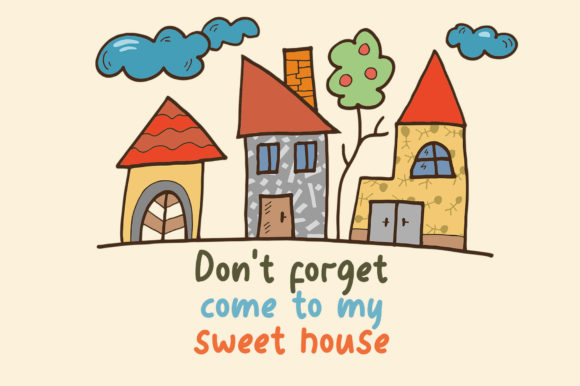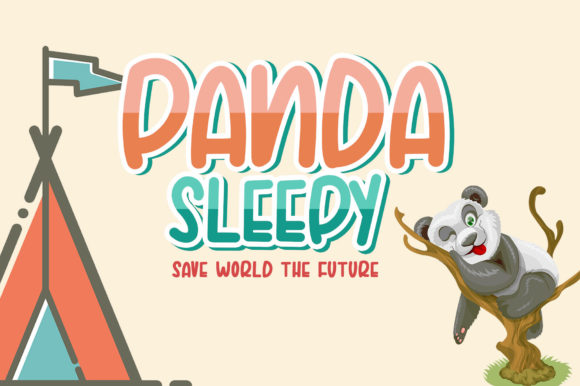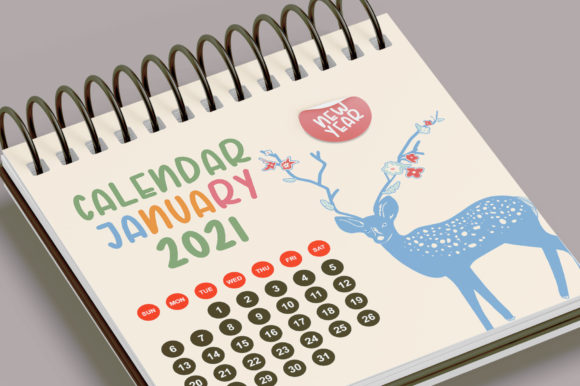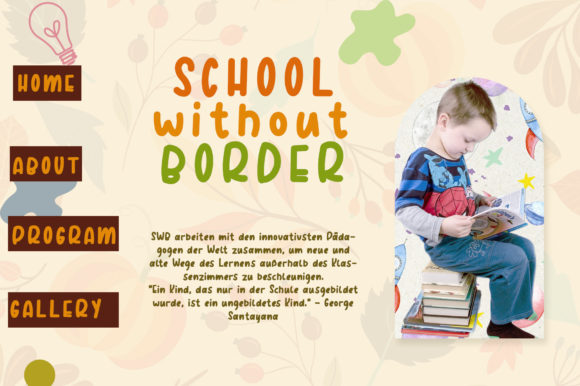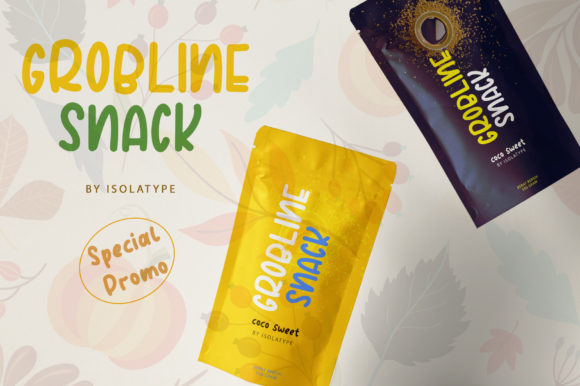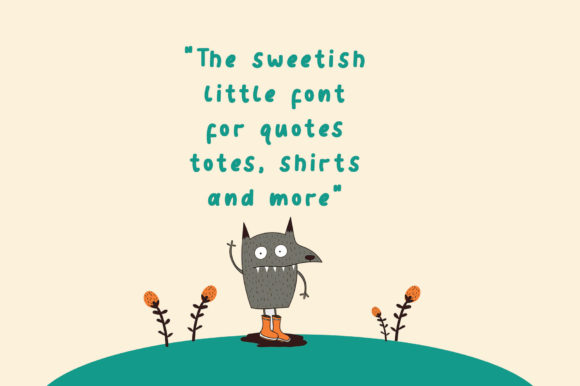
Kids Forester Font – Free Download
Introduction to Kids Forester Font
Kids Forester is a sweet, cool and quirky handwritten font.
No matter the topic, this font will be an incredibly asset to your fontโs library, as it has the potential to elevate any creation .
Key Features of Kids Forester Font
Why Choose Kids Forester Font?
Kids Forester Font offers exceptional quality and versatility, making it a valuable addition to your design toolkit. Whether you’re creating for personal projects or commercial use, Kids Forester Font delivers professional results.